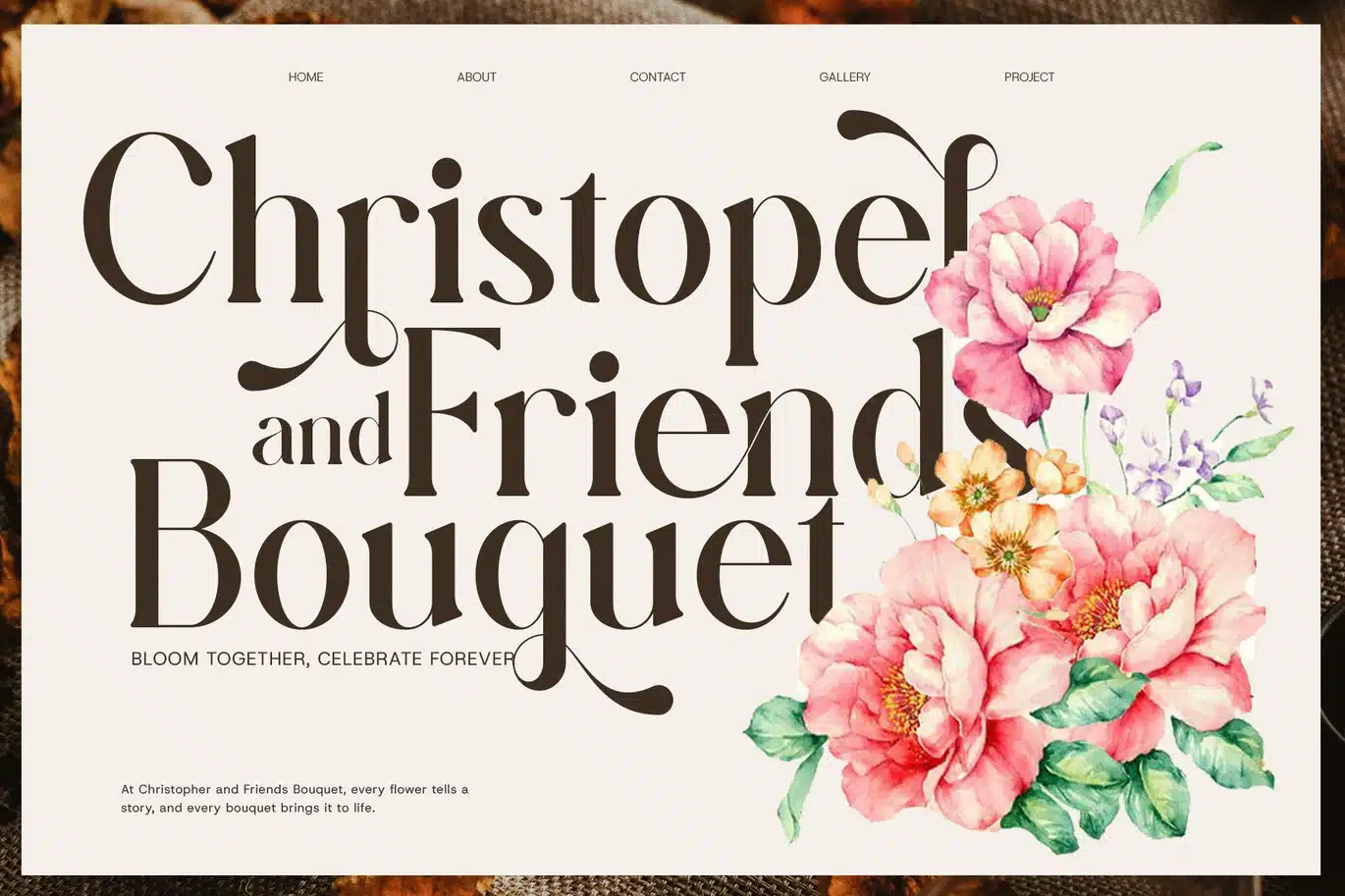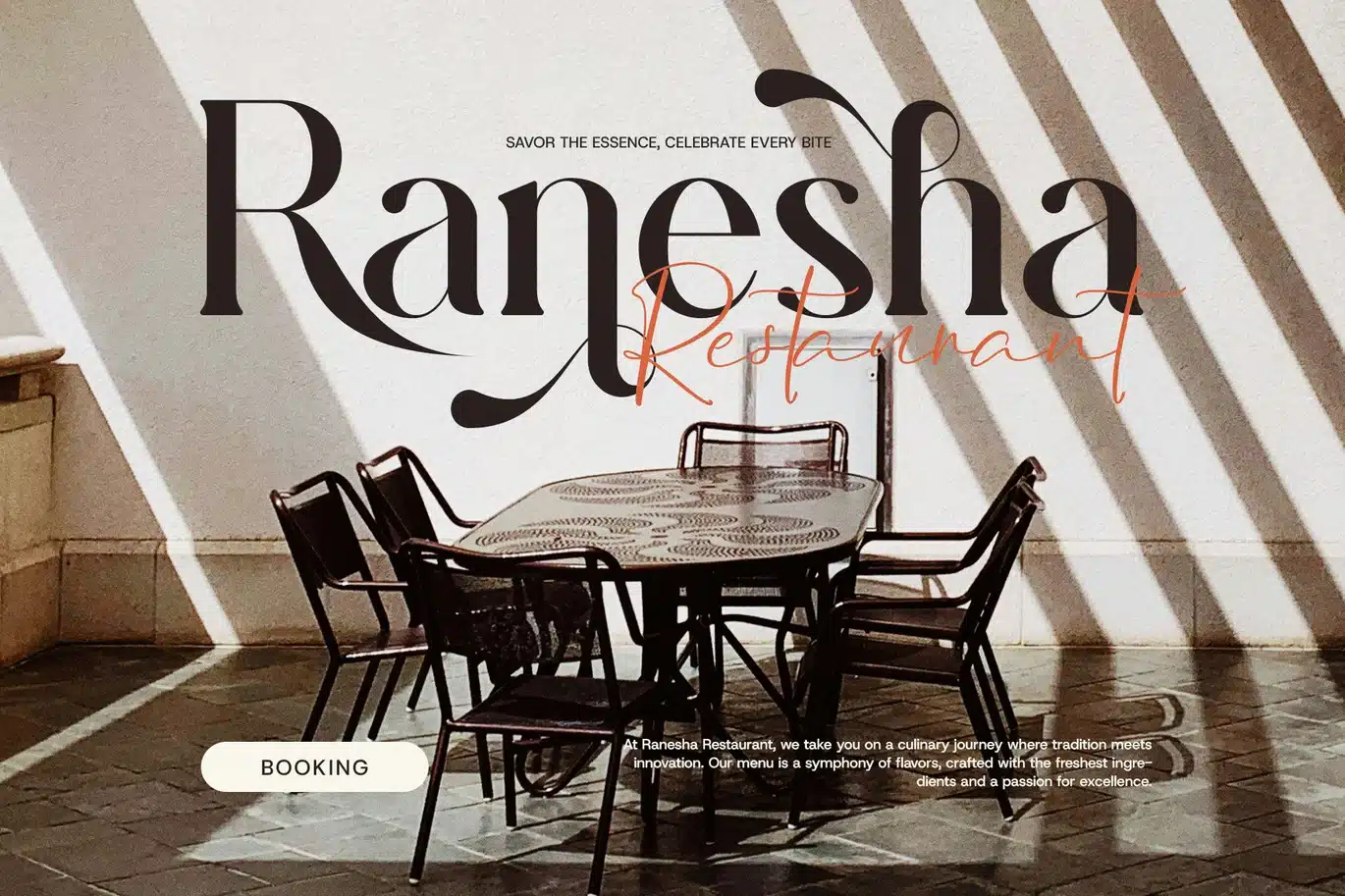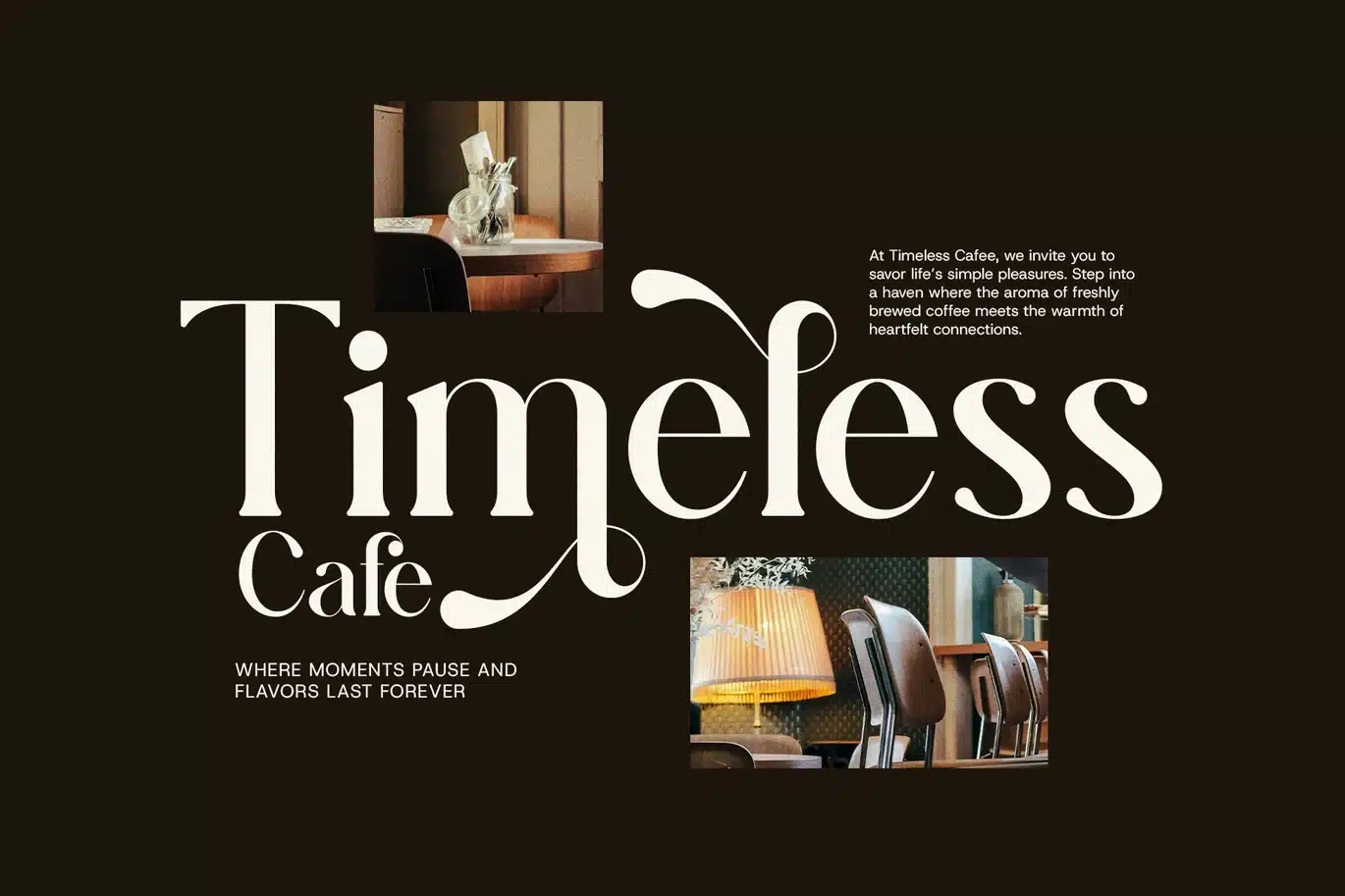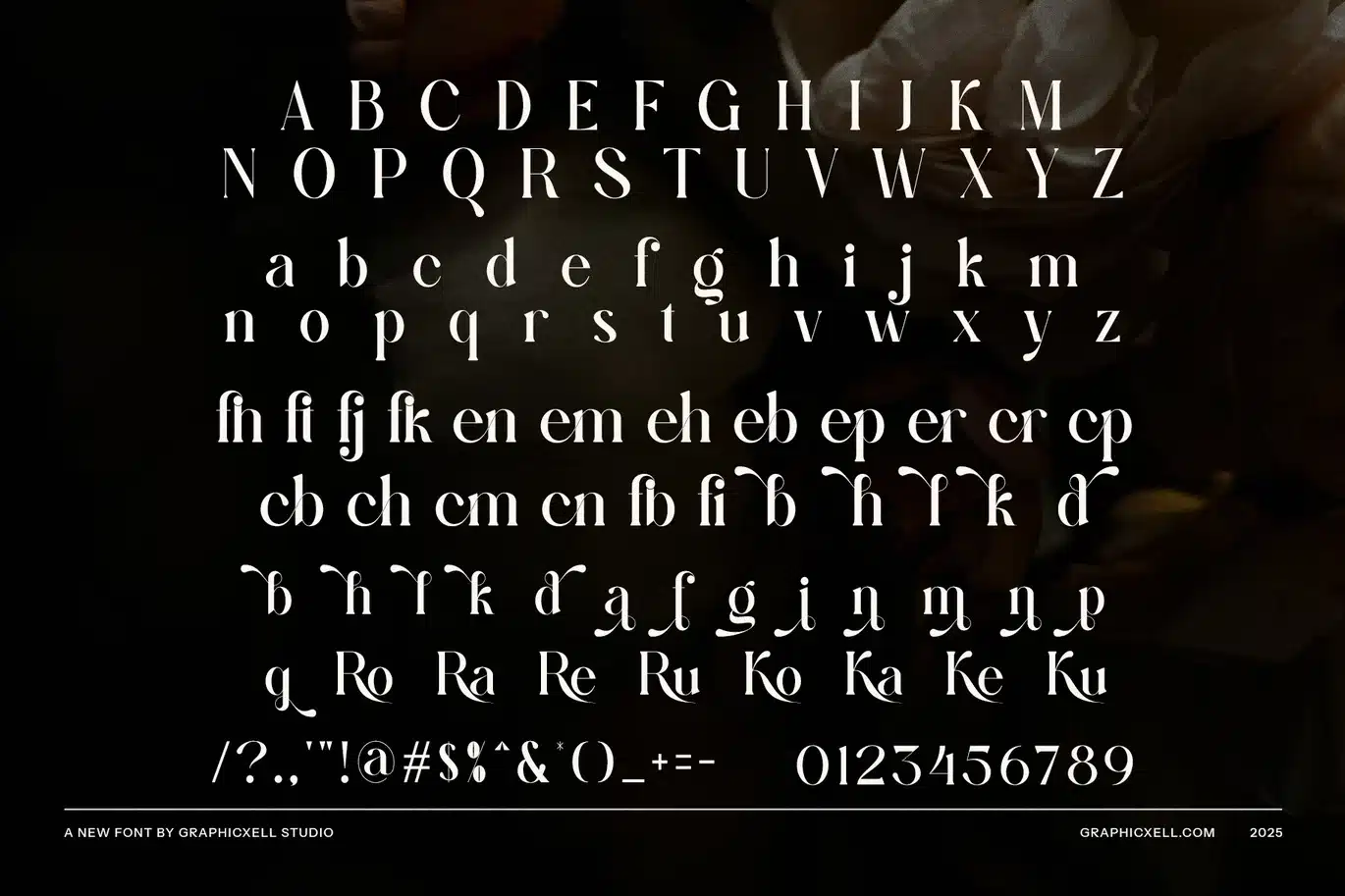
Figken Elegant Serif Font
Figken Elegant Serif is a refined and contemporary typeface that embodies sophistication and artistic craftsmanship. Designed with smooth curves, sharp serifs, and graceful proportions, this font seamlessly blends classic elegance with modern versatility. Perfect for branding, luxury packaging, editorial layouts, and digital platforms, Figken enhances any design with a polished and upscale aesthetic.
What makes Figken truly stand out is its exquisite ligatures and unique alternates, adding character and fluidity to typography. Whether you're creating a high-end logo, a striking magazine cover, or an elegant website, these refined details bring a sense of exclusivity and distinction. The well-balanced contrast and refined letterforms make it an excellent choice for both bold headlines and sophisticated body text, ensuring readability without compromising style.
Versatile yet distinctive, Figken adapts effortlessly to a range of design aesthetics, from minimal and sleek to luxurious and ornate. It pairs beautifully with modern sans-serif fonts for a contemporary contrast or can stand alone as a statement piece in branding, boutique advertising, and premium product packaging.
For designers seeking a font that radiates elegance, creativity, and timeless charm, Figken Elegant Serif is the ideal choice. Its sophisticated details and stylish appeal make it more than just a typeface—it’s a signature of refinement and artistic expression, crafted to leave a lasting impression.